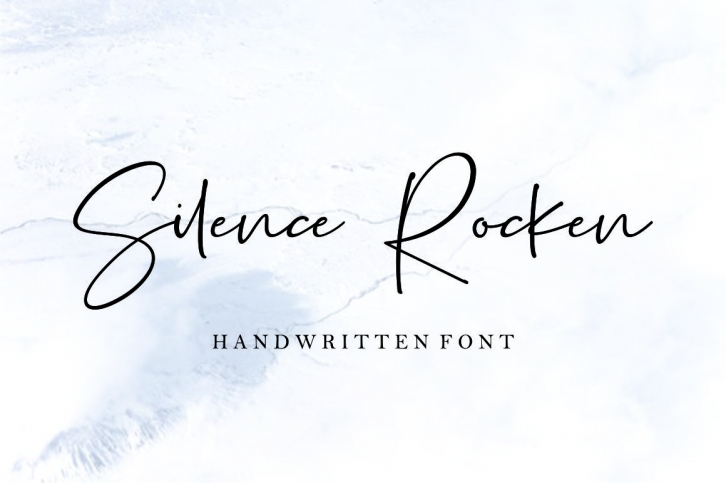
Silence Rocken Handwritten Font Download
Silence Rocken Handwritten is a trendy and unique font with an authentic style. It was designed by fikryal and it's a great choice for creative people who need such a font. It was released on April 16, 2019 and the file size is 21.4 MB. Silence Rocken Handwritten will add an organic vibe to any design idea!